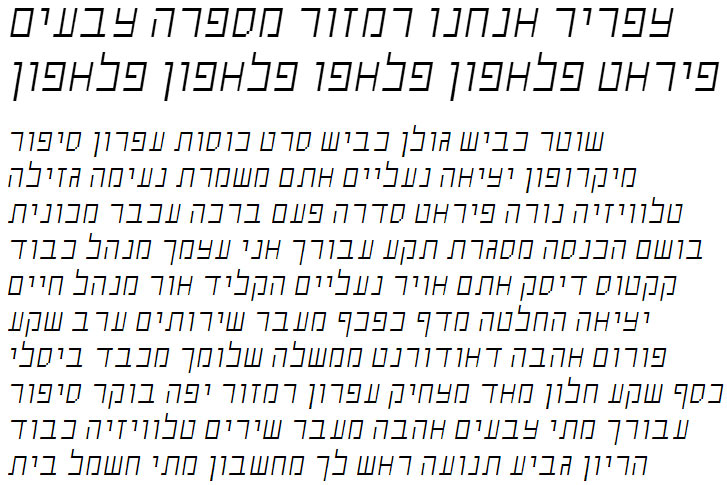
✓ These simple faces eroded from a number of experiments I've been conducting to find the skeletal source of the reflexive Hebrew character, as we recognize it as Hebrew readers. This typeface is definately not an example of how a basic Hebrew letterface looks like, but it uniquely interprets how we understand Hebrew letters, compared to Latin faces. This typeface holds a variety of styles. The name "Samson" is the name of the first Hebrew super-hero, that's how it felt like when I made it.
Shimshon Thin Italic Hebrew Font
โœ“ ื”ืคื ื™ื ื”ืคืฉื•ื˜ื•ืช ื”ืœืœื• ื ืฉื—ืงื• ืžืžืกืคืจ ื ื™ืกื•ื™ื™ื ืฉืขืจื›ืชื™ ื›ื“ื™ ืœืžืฆื•ื ืืช ืžืงื•ืจ ื”ืฉืœื“ ืฉืœ ื”ื“ืžื•ืช ื”ืขื‘ืจื™ืช ื”ืจืคืœืงืกื™ื‘ื™ืช, ื›ืคื™ ืฉืื ื• ืžื–ื”ื™ื ืื•ืชื• ื›ืงื•ืจืื™ ืขื‘ืจื™ืช. ื”ื’ื•ืคืŸ ื”ื–ื” ื”ื•ื ื‘ื”ื—ืœื˜ ืœื ื“ื•ื’ืžื” ืœืื™ืš ื ืจืื™ืช ืžื›ืชื‘ ืขื‘ืจื™ ื‘ืกื™ืกื™, ืื‘ืœ ื”ื•ื ืžืคืจืฉ ื‘ืื•ืคืŸ ื™ื™ื—ื•ื“ื™ ืืช ื”ืื•ืคืŸ ืฉื‘ื• ืื ื• ืžื‘ื™ื ื™ื ืื•ืชื™ื•ืช ืขื‘ืจื™ื•ืช, ื‘ื”ืฉื•ื•ืื” ืœืคื ื™ื ืœื˜ื™ื ื™ื•ืช. ื”ื’ื•ืคืŸ ื”ื–ื” ืžื›ื™ืœ ืžื’ื•ื•ืŸ ืกื’ื ื•ื ื•ืช. ื”ืฉื "ืฉืžืฉื•ืŸ" ื”ื•ื ืฉืžื• ืฉืœ ื’ื™ื‘ื•ืจ ื”ืขืœ ื”ืขื‘ืจื™ ื”ืจืืฉื•ืŸ, ื›ื›ื” ื–ื” ื”ืจื’ื™ืฉ ื›ืฉื”ื›ื ืชื™ ืื•ืชื•.